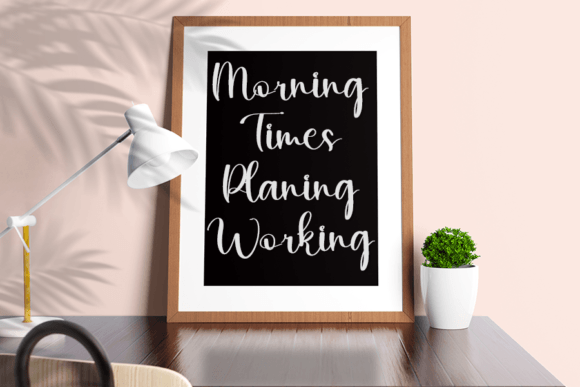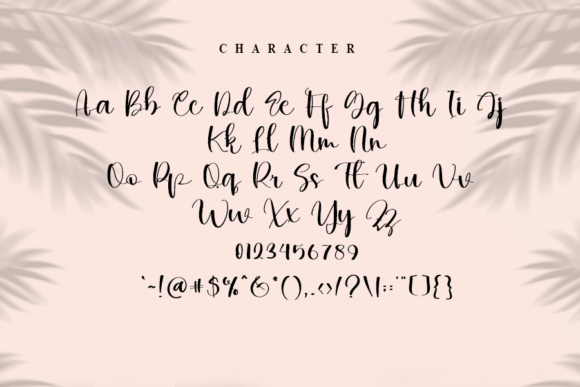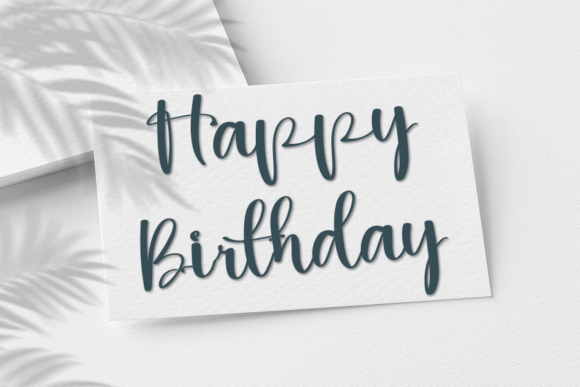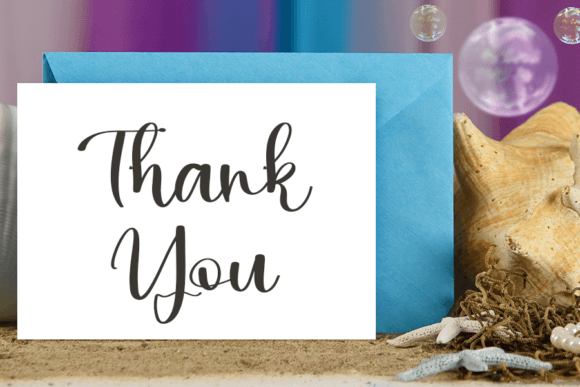
Introduction to Flaminggo Font
Flaminggo is a beautiful and refined handwritten font.
Classy and modern, it is perfect for logos, branding, invitations, stationery, wedding designs, social media posts, and much more .